1. Introduction to Urban Graffiti Font Inspiration
Urban Graffiti Font Inspiration design culture has always been closely connected to typography. From subway murals to skateboards and streetwear branding, graffiti lettering represents freedom, rebellion, and raw creativity. Urban Graffiti Font Inspiration is now widely used not only in street art but also in digital design, branding, music visuals, and social media graphics.
As brands increasingly look for authentic, expressive typography, graffiti fonts have become a powerful tool to communicate bold personality and urban identity.
2. What Is Urban Graffiti Font Inspiration Style?
Urban graffiti font styles are typefaces inspired by hand-drawn street lettering, spray paint art, and underground culture. These fonts often mimic the imperfect strokes, rough textures, and expressive shapes found in real graffiti art.
Unlike clean corporate fonts, graffiti fonts embrace irregularity, movement, and attitude—making them ideal for projects that demand strong visual emotion.
3. The Visual Power of Urban Graffiti Font Inspiration in Modern Design
Graffiti fonts stand out instantly. Their visual strength helps designers:
- Capture attention quickly
- Communicate rebellion and creativity
- Build strong street-style branding
- Create emotional connection with younger audiences
- Add raw energy to visual layouts
In competitive digital spaces like social media and poster design, graffiti typography helps designs cut through visual noise.
4. Key Characteristics of Urban Graffiti Font Inspiration
Urban graffiti fonts usually share several defining traits:
✔ Hand-Drawn Appearance
Uneven strokes and organic shapes replicate authentic graffiti writing.
✔ Bold and Expressive Forms
Designed to dominate the visual space and convey strong personality.
✔ Rough or Textured Details
Brush strokes, splatter effects, or grunge textures add realism.
✔ Dynamic Letter Shapes
Letters often feel in motion, enhancing energy and attitude.
5. Popular Use Cases for Urban Graffiti Font Inspiration
Graffiti fonts are widely used across creative industries, including:
- Streetwear and apparel branding
- Music album covers and event posters
- Skateboarding and urban sports visuals
- Social media graphics and thumbnails
- Youth-oriented brand campaigns
- Urban-themed websites and landing pages
When used correctly, graffiti typography becomes a powerful storytelling element.
6. How to Choose the Right Urban Graffiti Font Inspiration
When selecting an urban graffiti font, consider:
- Design purpose: Logo, poster, headline, or social media?
- Readability: Ensure text remains legible at intended sizes
- Texture level: Balance raw detail with clarity
- Mood: Aggressive, playful, rebellious, or artistic?
Graffiti fonts work best as display fonts rather than body text.
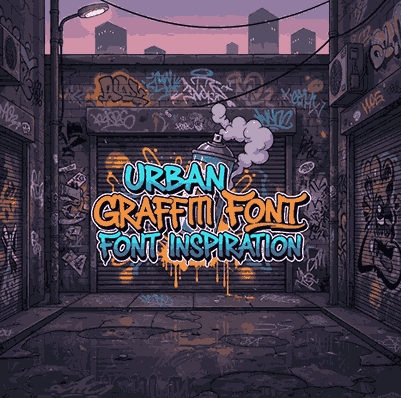
7. Urban Graffiti Font Examples from Edric Studio
Below are high-quality graffiti-style fonts from Edric Studio that perfectly represent urban typography inspiration:
🔹 Swag Ghost Font
A grunge brush font with strong street energy, ideal for expressive graffiti headlines and urban branding.
🔹 Bubble Effect Font
Playful bubble-style graffiti font inspired by classic street art lettering, great for youthful and colorful designs.
🔹 Skateboard Wheels Font
Urban display font inspired by skate culture and street lifestyle, perfect for posters and apparel designs.
🔹 Manly Dack Grunge Font
Rough grunge font with bold texture, excellent for edgy graffiti-inspired visuals and strong typographic statements.
These fonts showcase how urban graffiti typography can elevate creative projects with authenticity and attitude.
8. Tips for Using Graffiti Fonts Effectively
To maximize impact when using graffiti fonts:
- Use them for headlines or short phrases
- Pair with clean sans-serif fonts for balance
- Keep backgrounds simple for readability
- Avoid overcrowding layouts
- Use sufficient contrast between text and background
Strategic use ensures graffiti fonts enhance, rather than overpower, your design.
9. Common Mistakes to Avoid
Avoid these common issues when working with graffiti typography:
- Using graffiti fonts for long paragraphs
- Overusing textured fonts in one layout
- Ignoring spacing and alignment
- Combining multiple graffiti fonts together